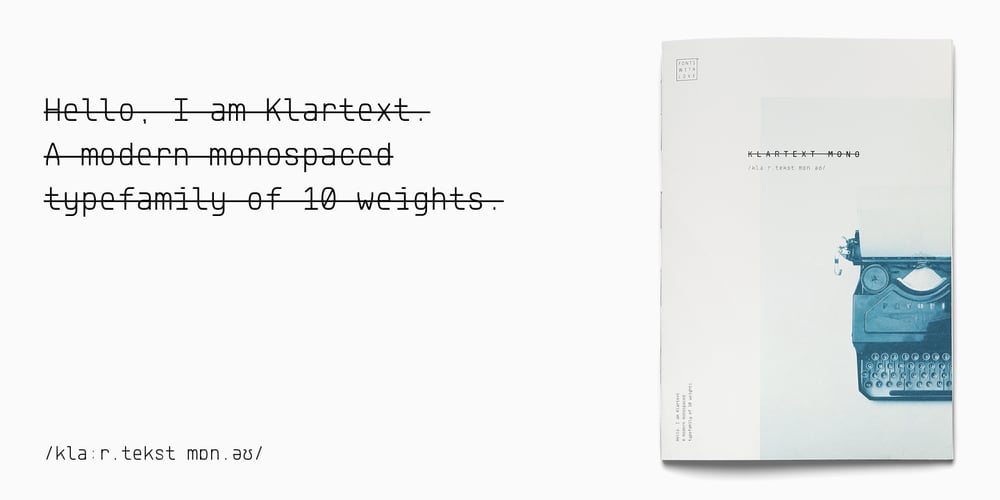
Klartext Mono Font Family was designed by published by Fonts With Love. Klartext Mono contains 10 styles and family package options. Klartext [plain talking, clear words] A modern monospaced type family of 10 weights. Klartext Mono combines a classical monospaced font and modern monolined sans-serif with a humanistic touch. It is characterized by a large x-height, slightly condensed glyphs with well shaped curves and soft strokes. As a special feature, Klartext contains a bunch of uncommon glyphs like the German capital sharp S, a nice arrowset and a basic phonetic alphabet (20 letters in IPA Extensions, some more in Latin Basic thru Extended B).